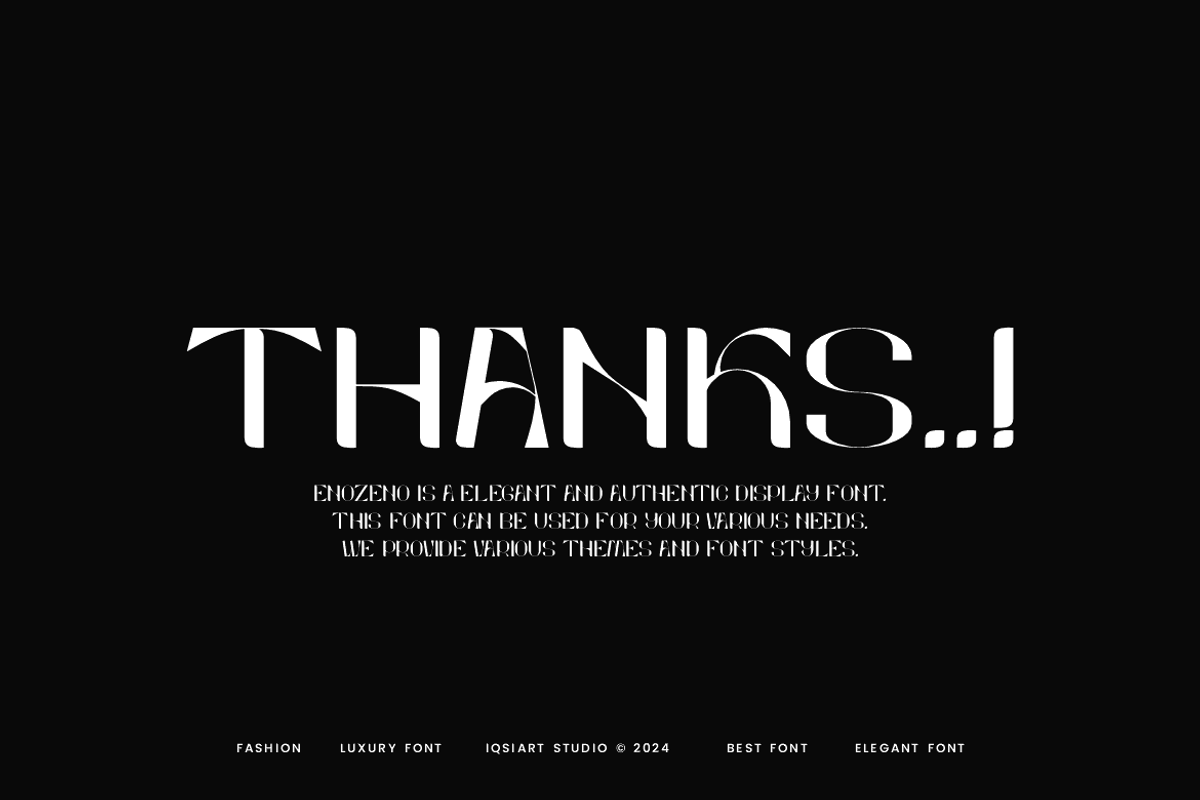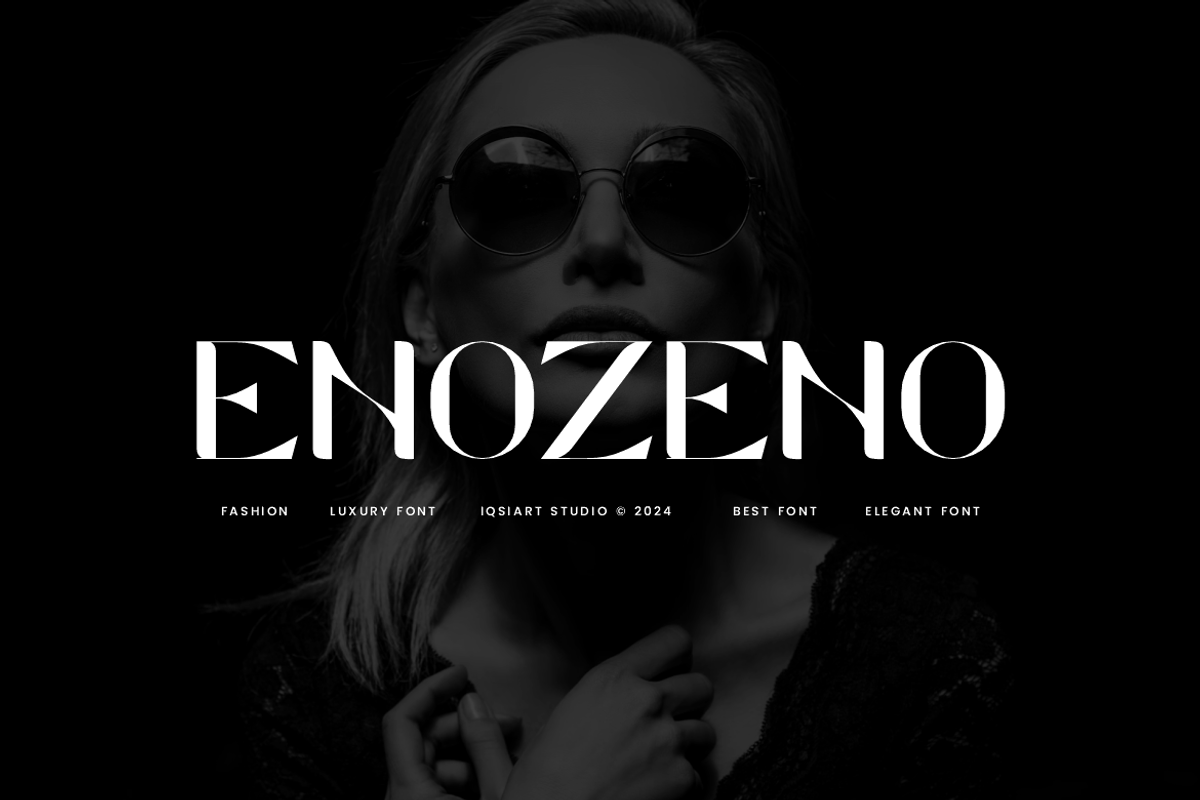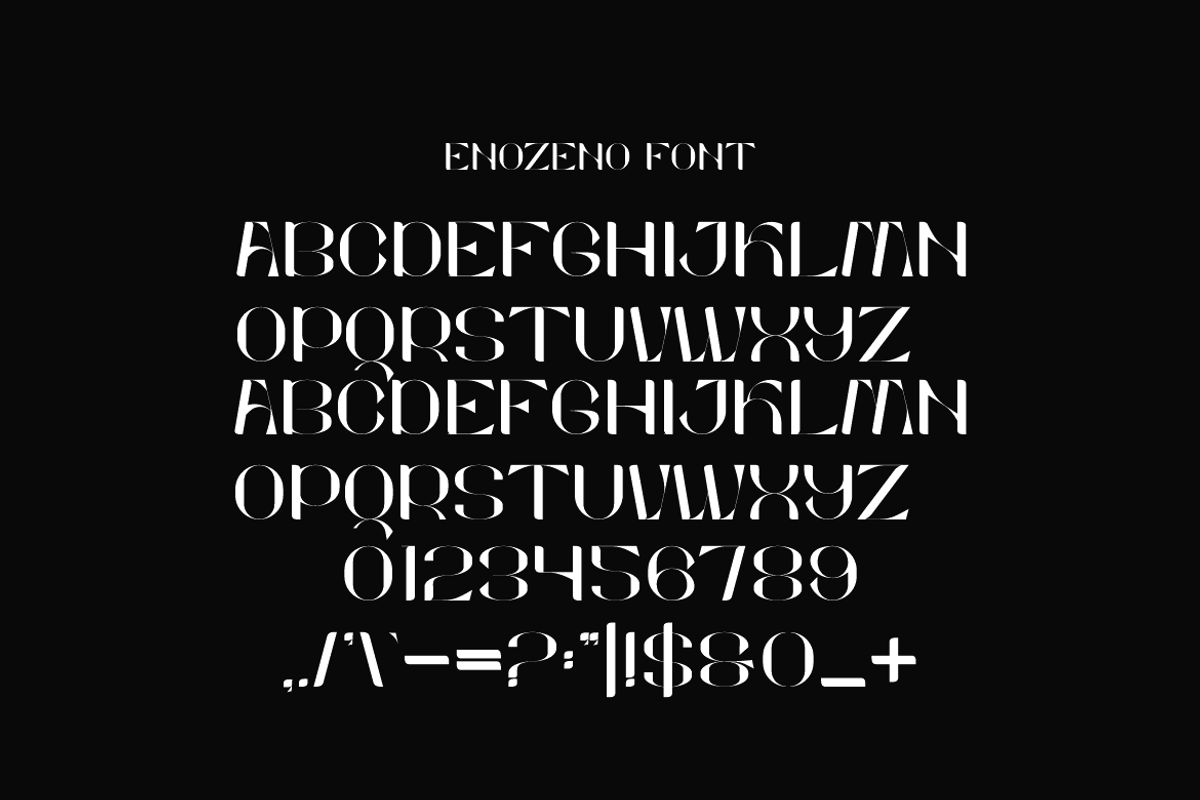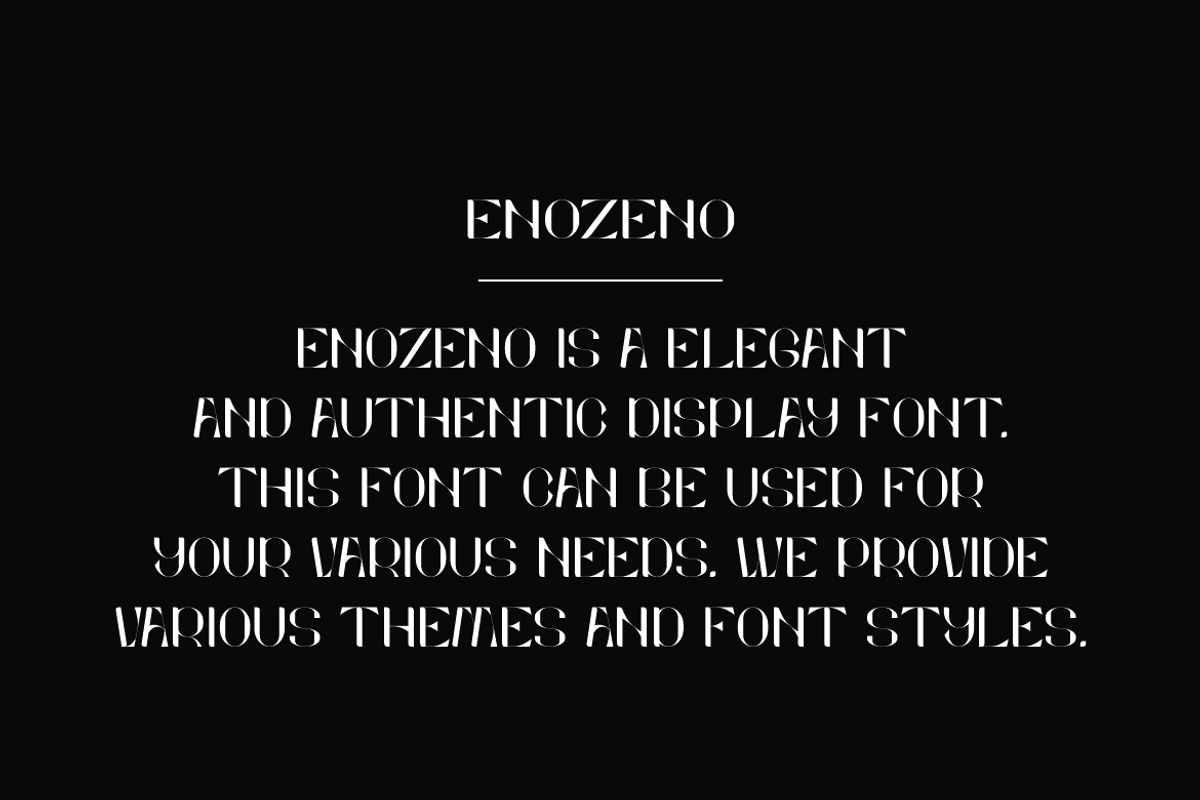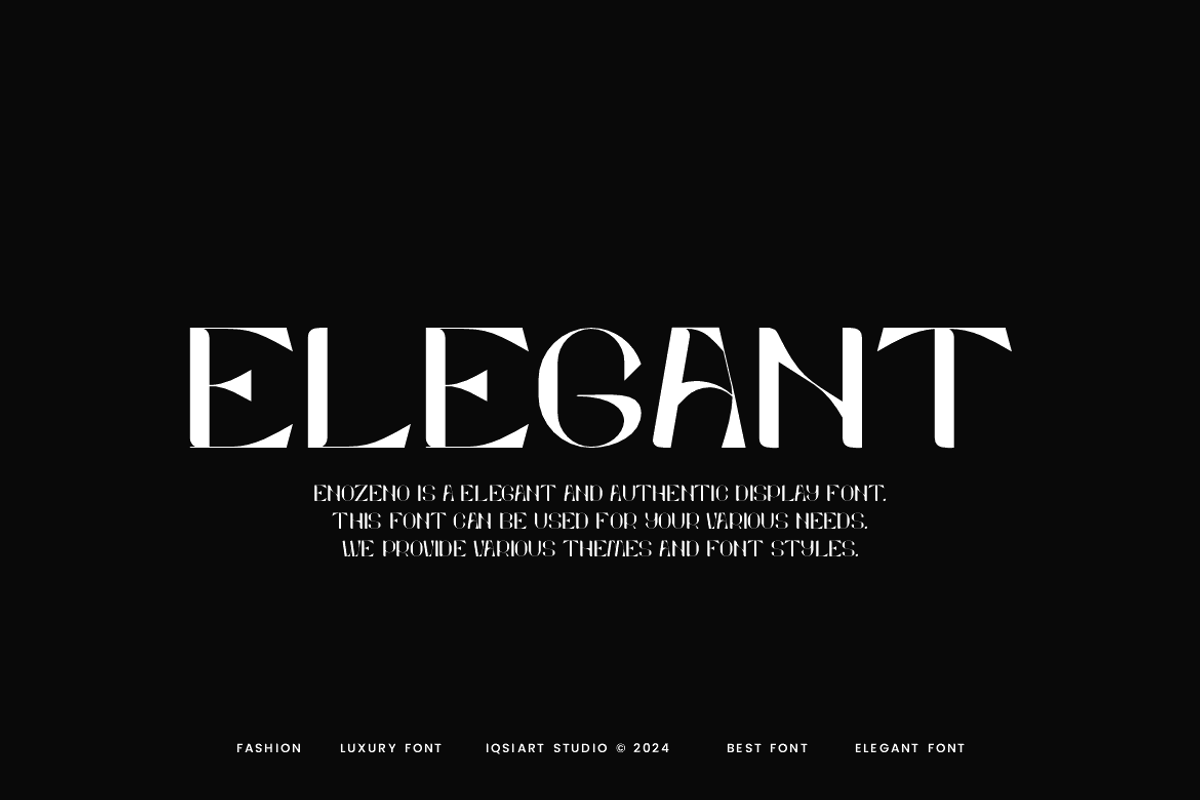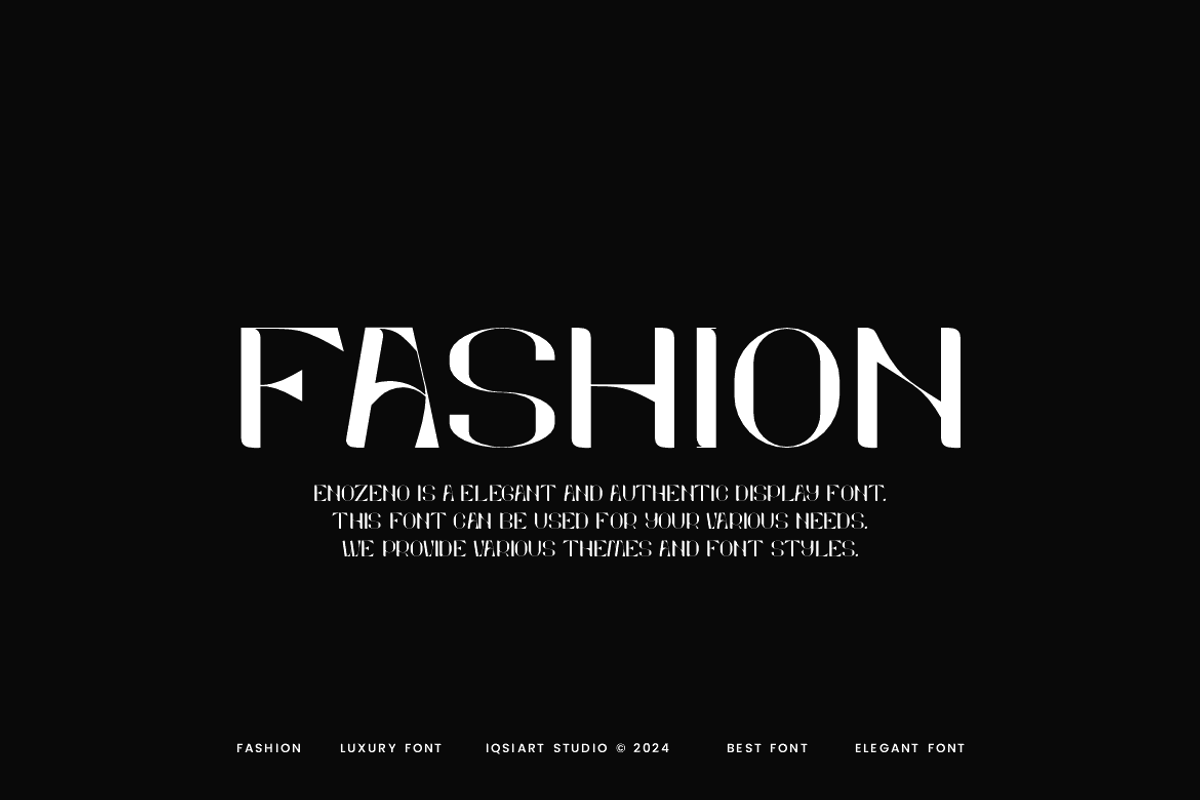
Enozeno - Elegant Font
Enozeno Font is a best and authentic display font. This font can be used for your various needs. We provide various themes and font styles. visit our profile to get a wide variety of themes and different font styles you need.